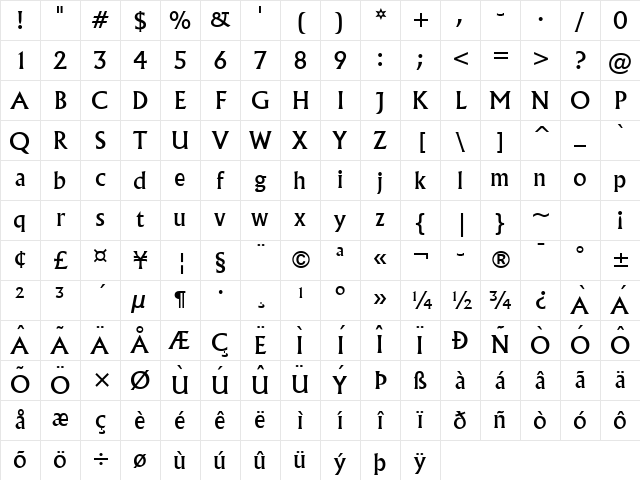
Complete Flair Normal glyph index. Displaying only characters natively supported by Flair Normal font.
Flair is a composed and adaptable typeface that performs quietly and consistently across a wide range of design contexts.